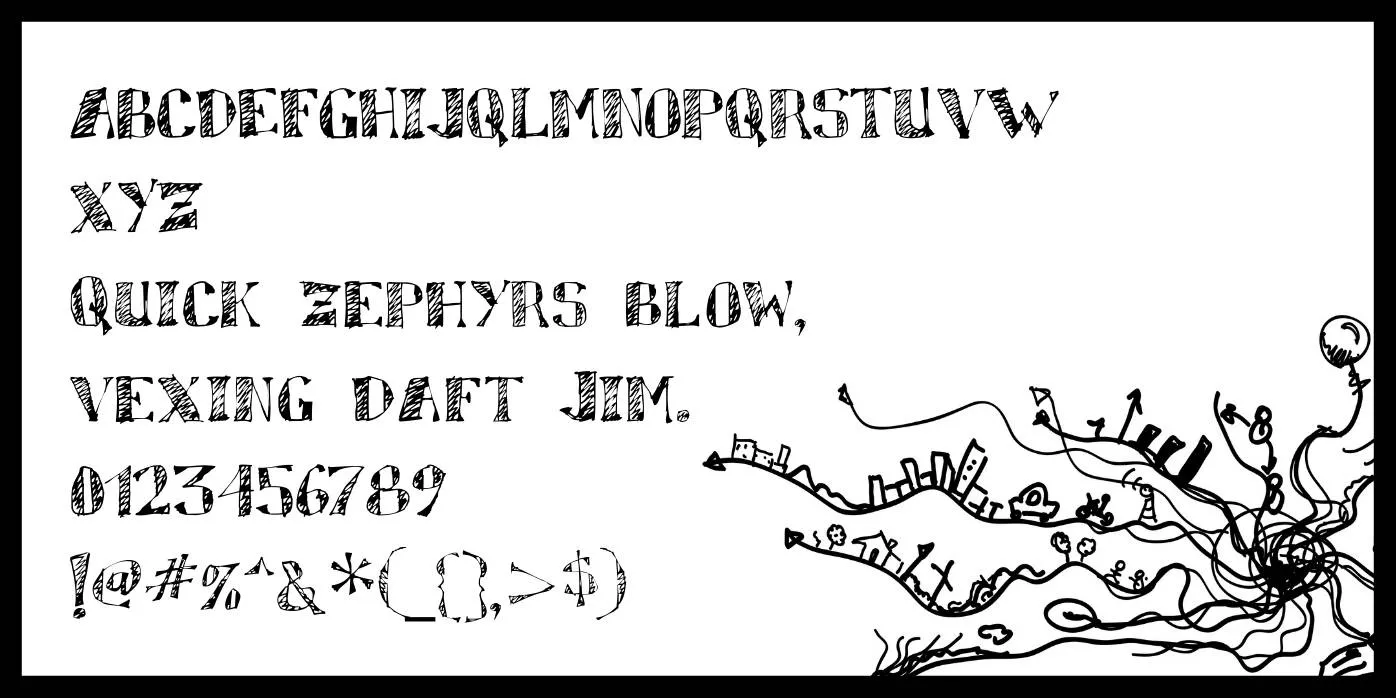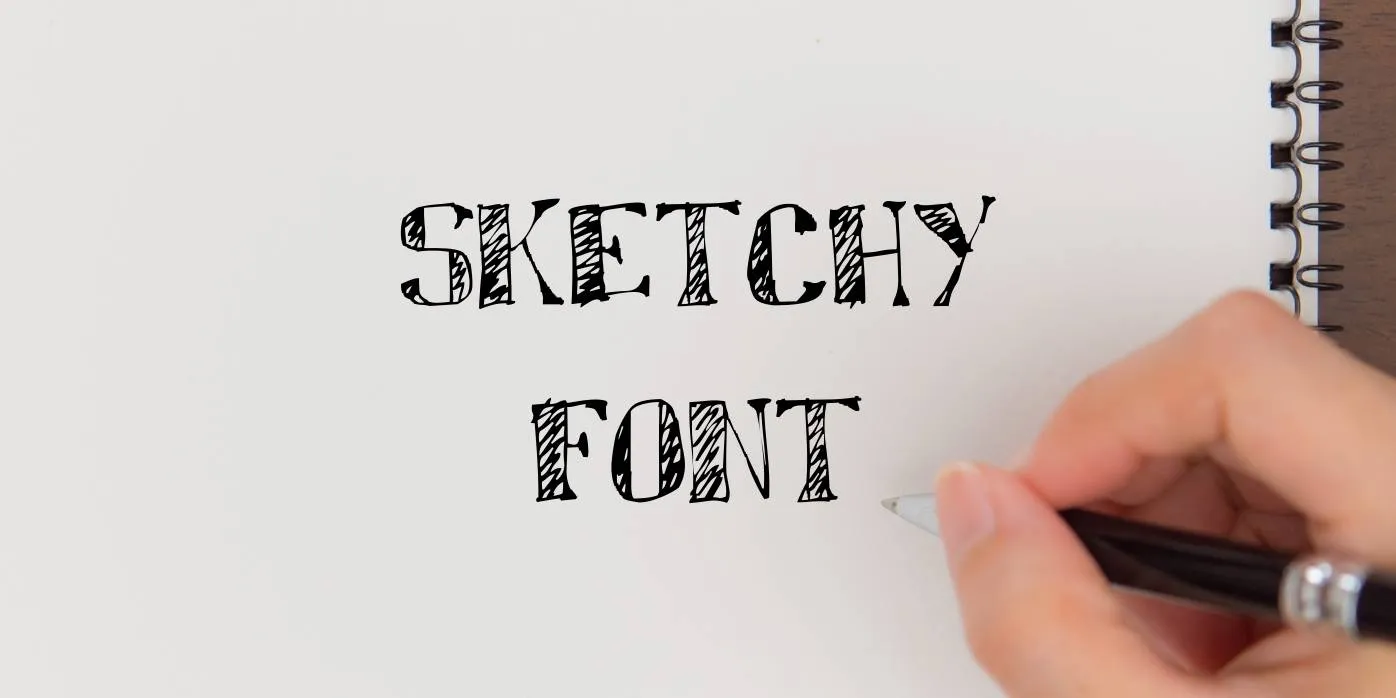
Sketchy Font
Sketchy font is the most unique and fabulous typeface that has beautiful handwriting style characters. It belongs to a Handwritten font and the creator of this typeface Nirmana Visual. It is free for personal use and has TTF and OTF features as well. The designer of this typeface is the best font artist that has made a lot of stunning fonts that you can see by yourself and thanks to the author to give us this outstanding textual typeface.
It can support multilanguage like English, Sami (Northern), Samoan, Belarusian, Bislama, Bosnian, Hausa, Hawaiian, Hiligaynon, Hill Mari, and much more. It contains Uppercase and Lowercase, Letters, Numbers and Numerals, and special symbols also. The font provides the pairing function with One day Font. You may also generate this typeface by an online generator tool even without downloading.